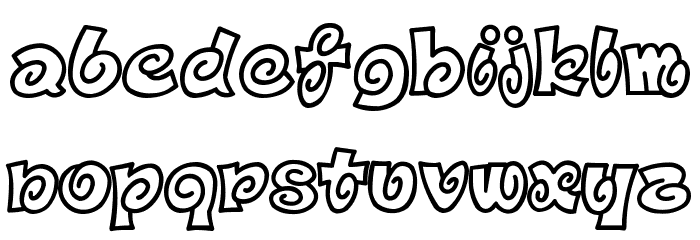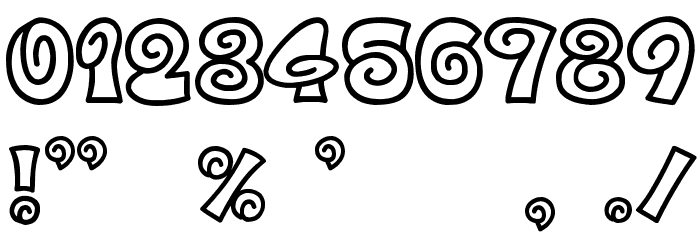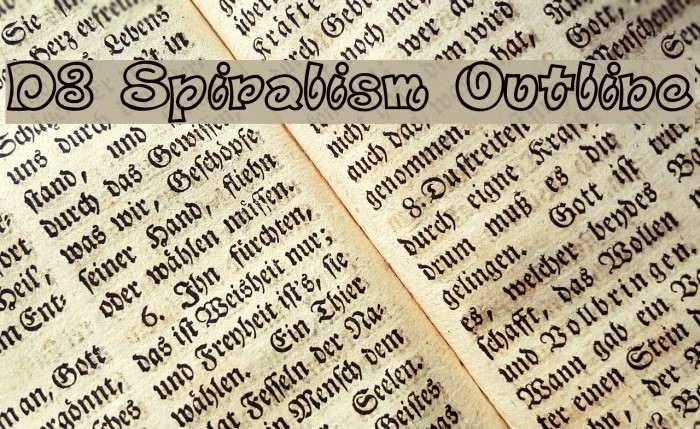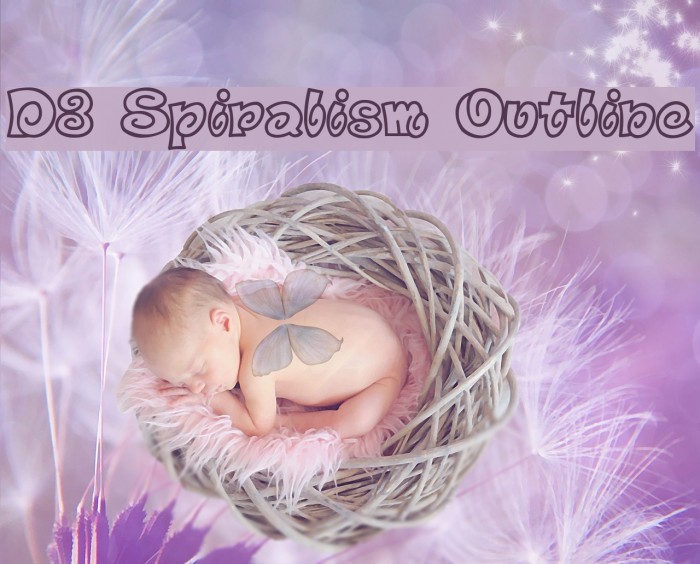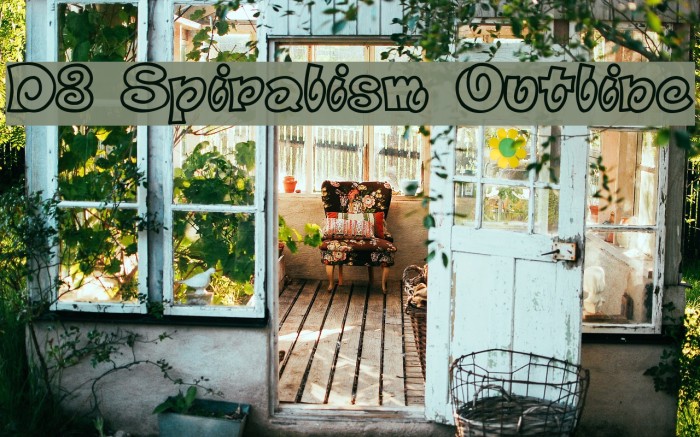
D3 Spiralism Outline Font
This font features a playful and whimsical design, characterized by its bold, outlined letters with a spiral-like twist. Each character is uniquely crafted with exaggerated curves and loops, giving it a dynamic and lively appearance. The font maintains a consistent thickness throughout, ensuring readability while adding a touch of creativity. Its distinct style makes it stand out, perfect for projects that require a fun and engaging visual element. The font includes a full set of uppercase and lowercase letters, numbers, and a selection of special characters, all designed with the same artistic flair.
A playful, spiral-themed outlined font with bold, whimsical characters.
- Proposed Projects: Ideal for children's books, playful branding, party invitations, and creative posters.